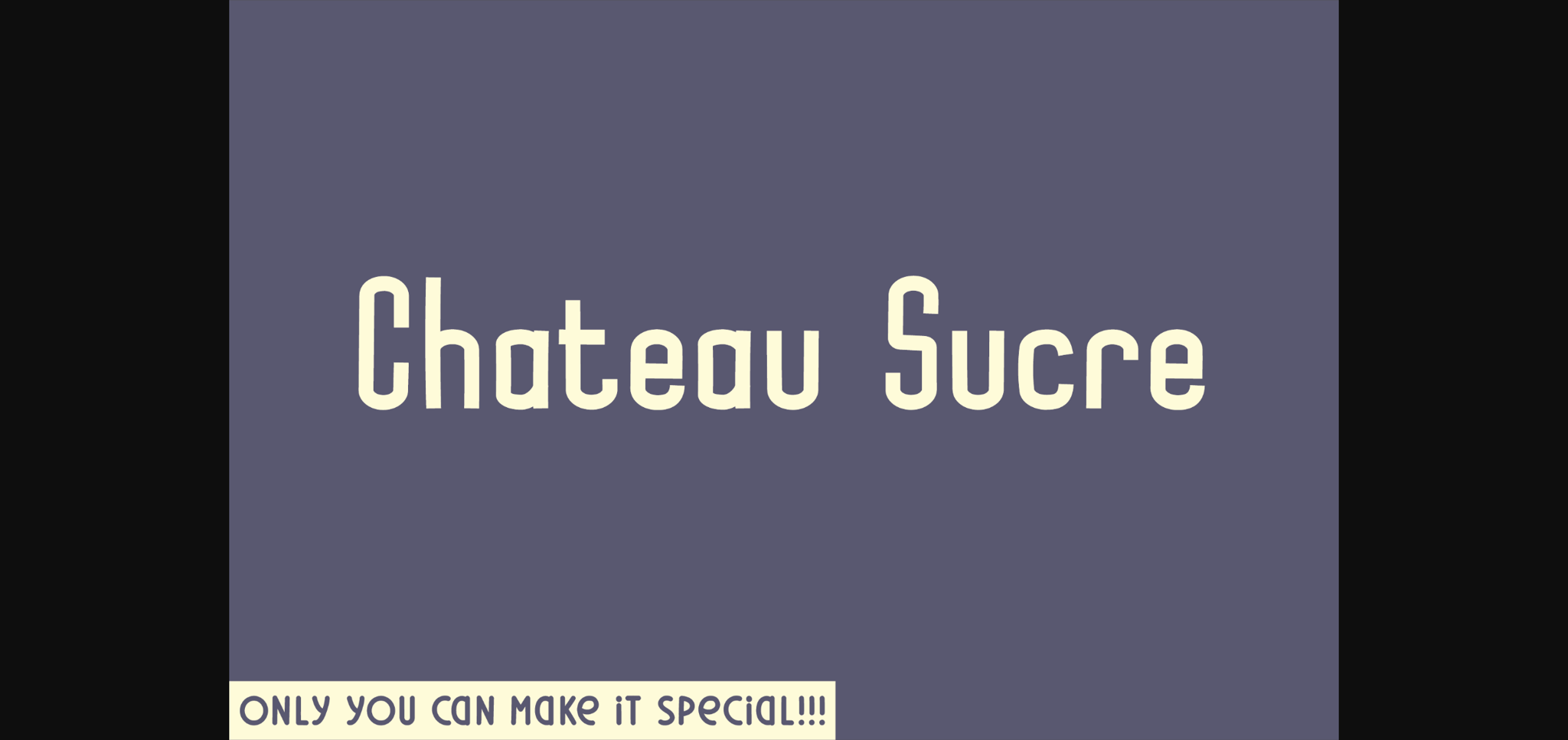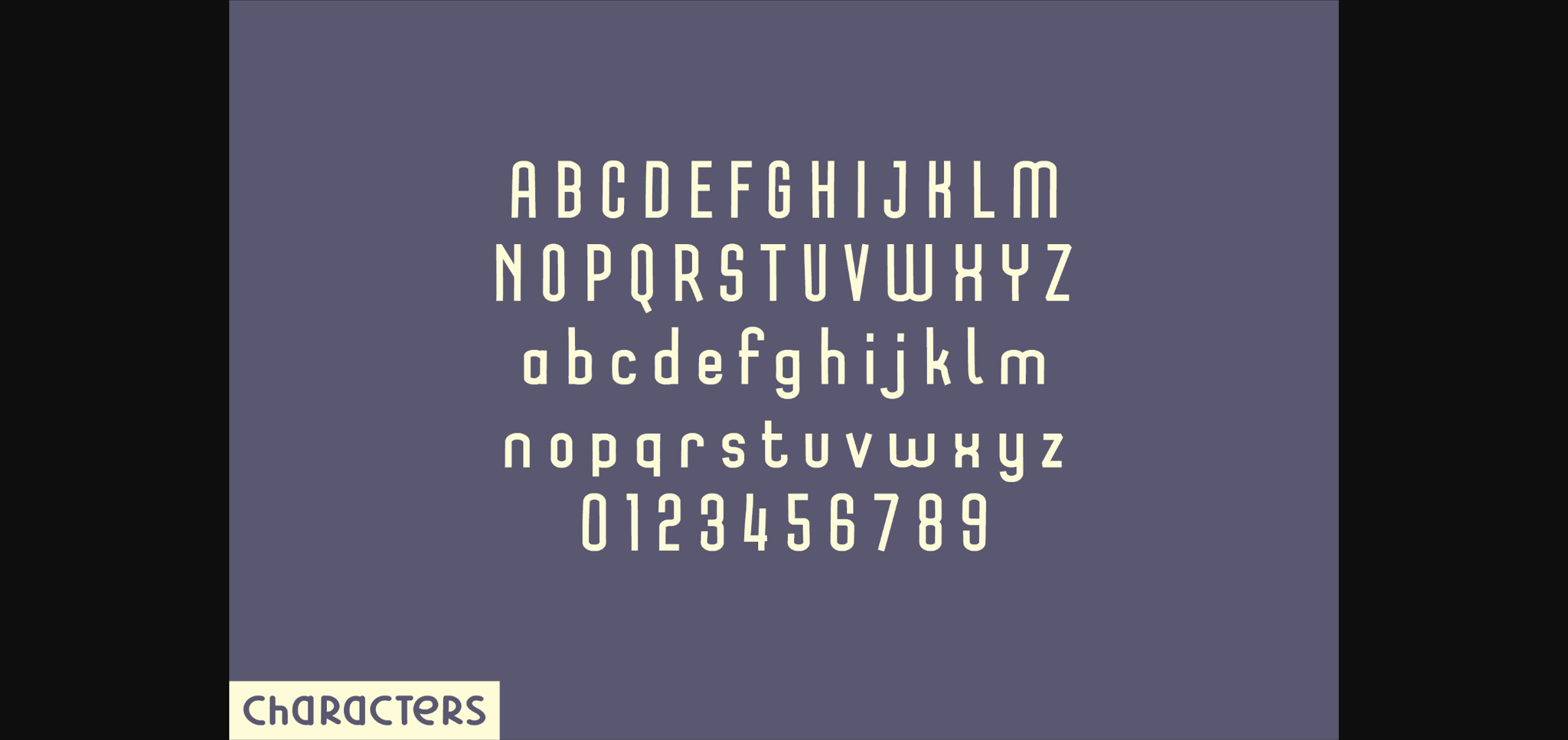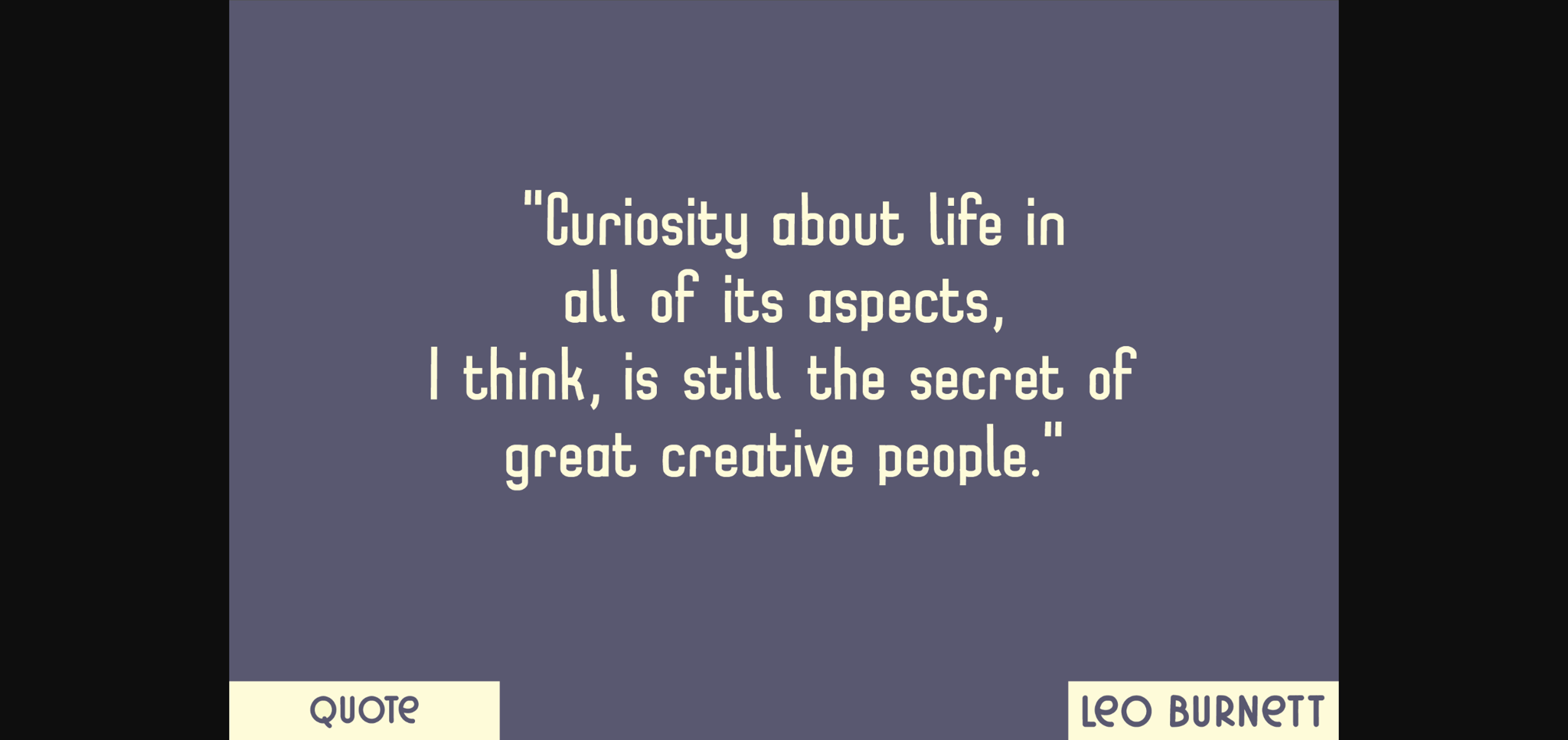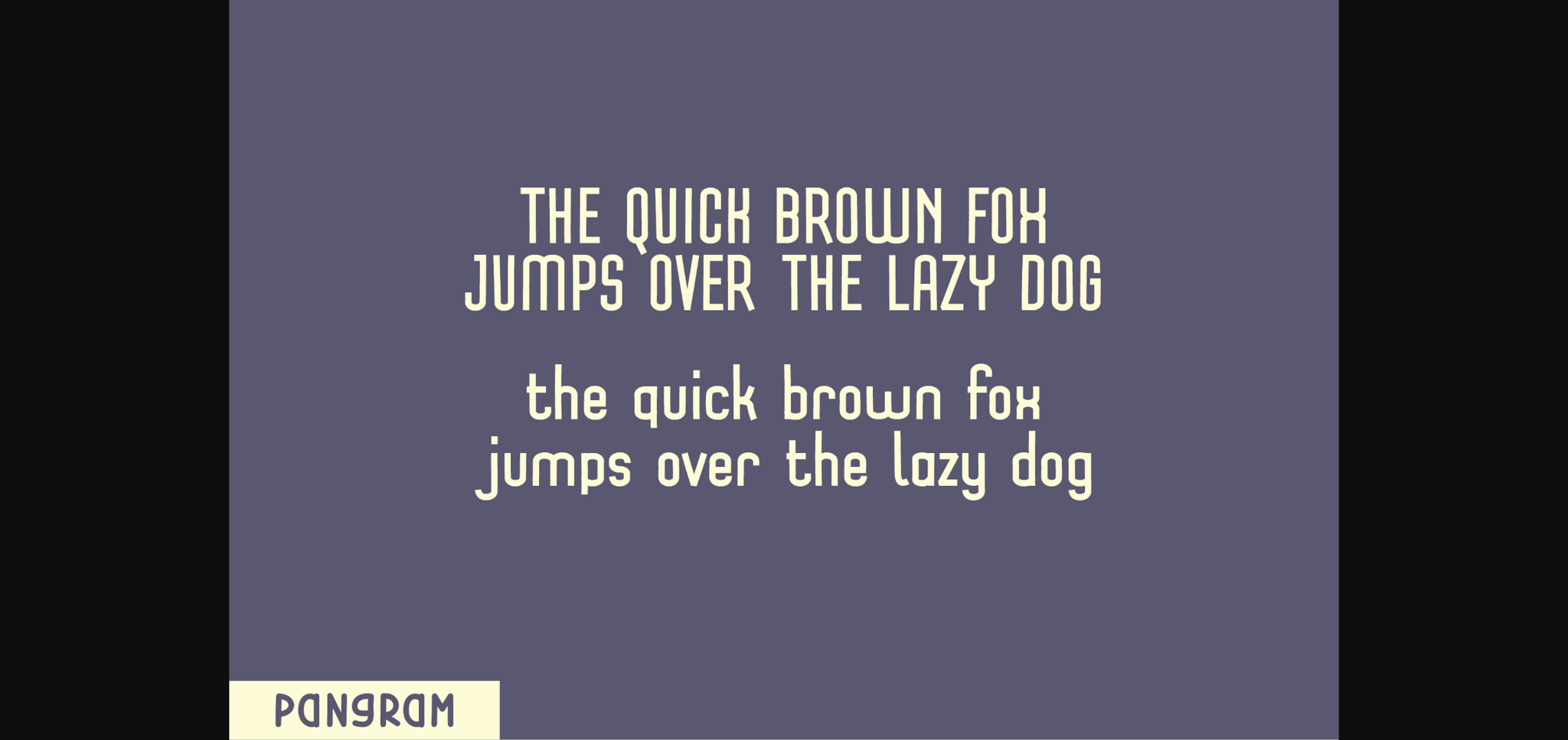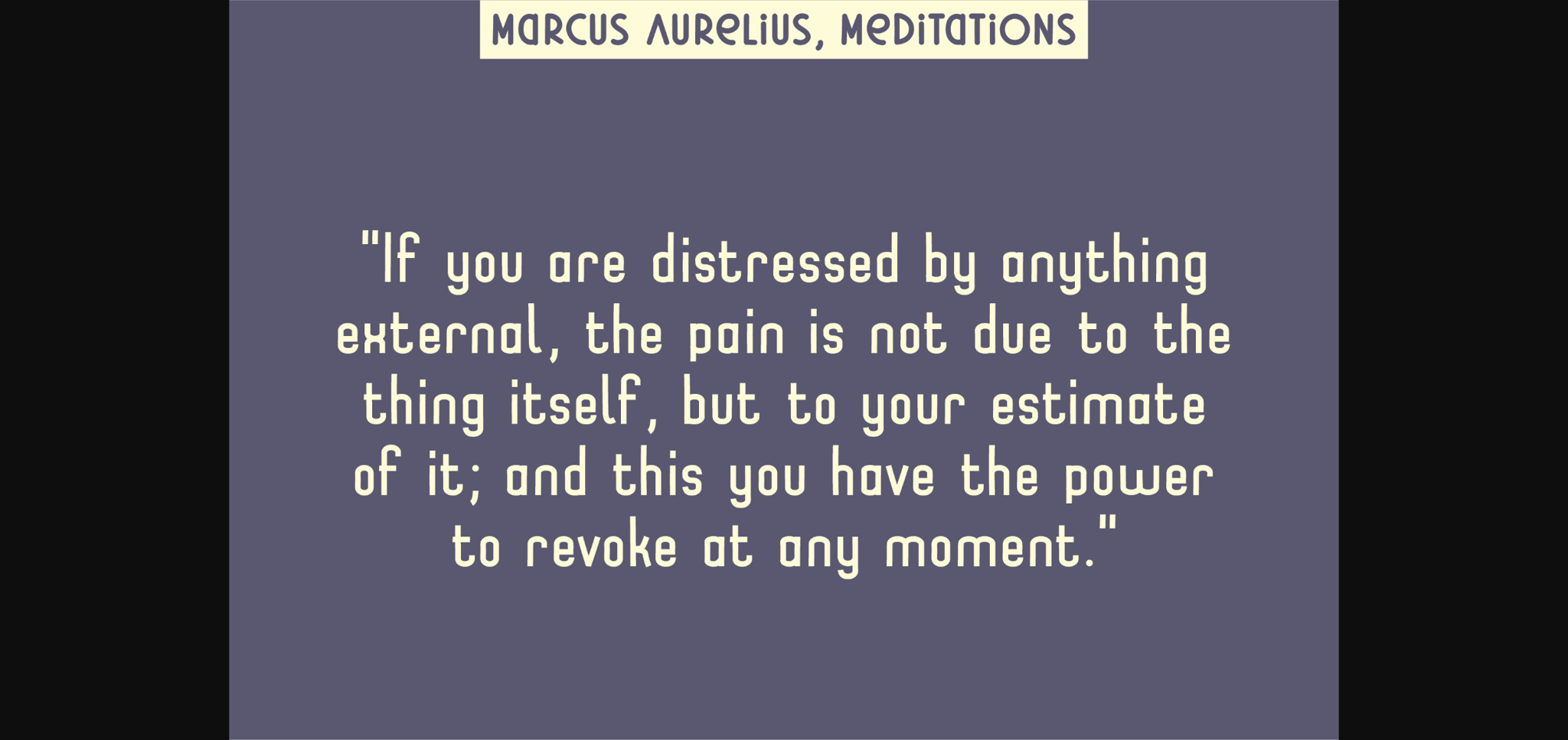
Chateau Sucre Font
About Chateau Sucre Font
Discover the distinct charm of Chateau Sucre, a handwritten sans-serif font that blends sophistication with accessibility. A harmonious amalgamation of uppercase, lowercase, numbers, and functional letters, this font embodies style and practicality. Each letter ends with a silhouette, offering an agreeable yet assertive impression, enhancing your design’s aesthetic appeal. Ideal for any creative output requiring a notable uniqueness, Chateau Sucre adds a dash of tailored elegance to your vision.